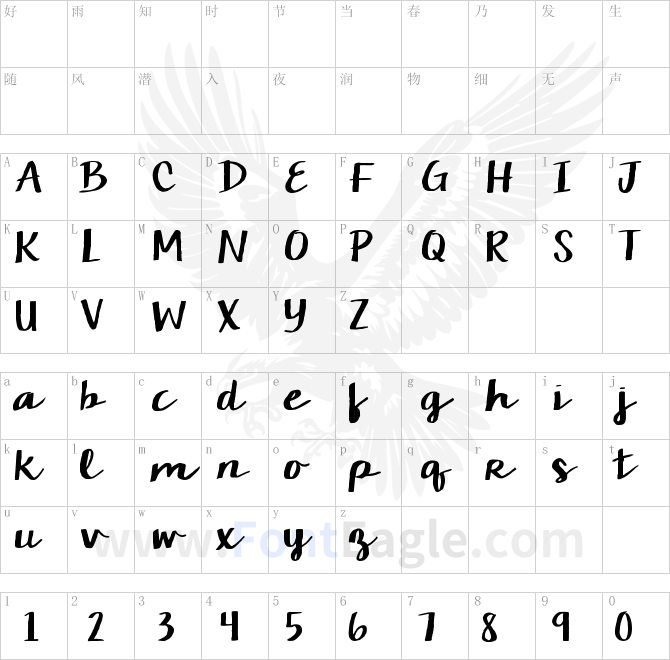
- Font name:KG Camden Market Script
- Font Subfamily ID:KimberlyGeswein: KG Camden Market Script: 2015
- Font Full Name:KG Camden Market Script
- Font Version:Version 1.000 2015 initial release
- Postscript:KGCamdenMarketScript